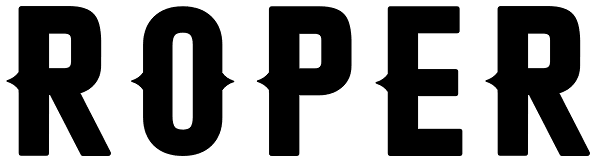
Roper
Roper is a western styled font that comes in a sans and a serif version, each version has a regular, press light and a press heavy option. The press versions are a letterpress/stamped style. Although Roper is an all caps family of fonts and was...